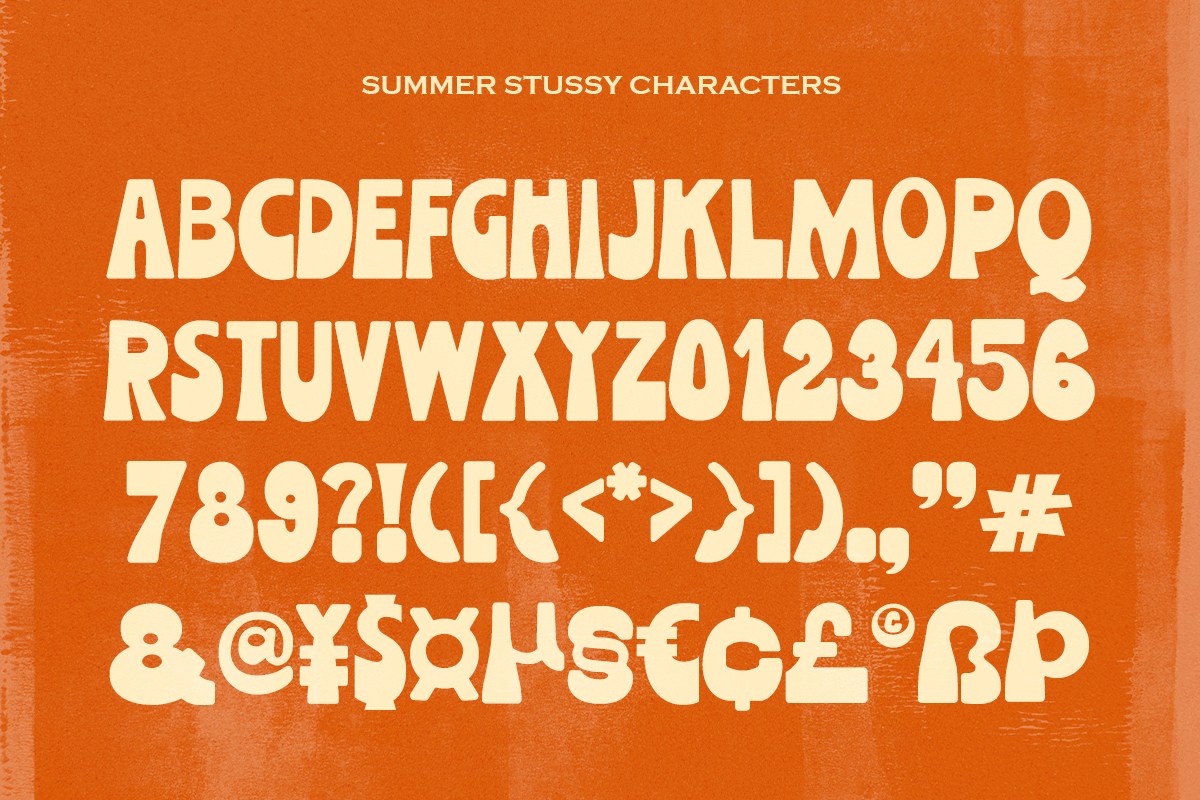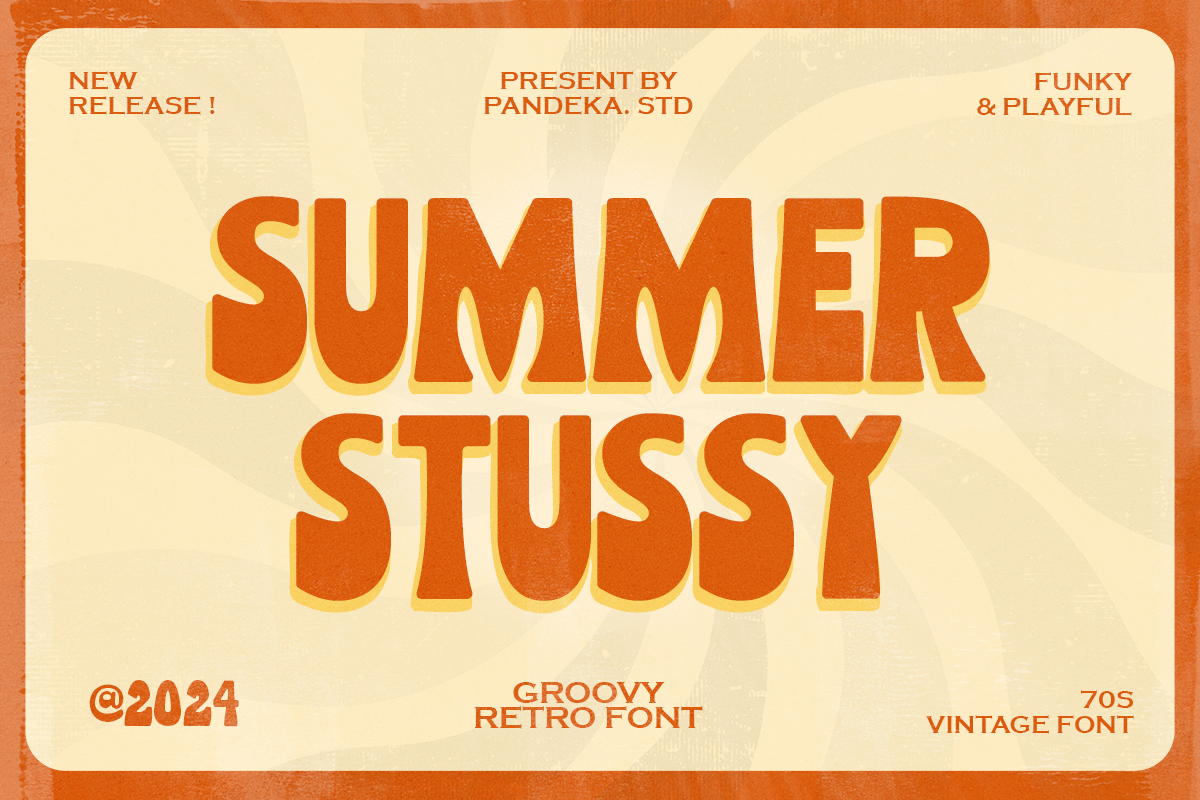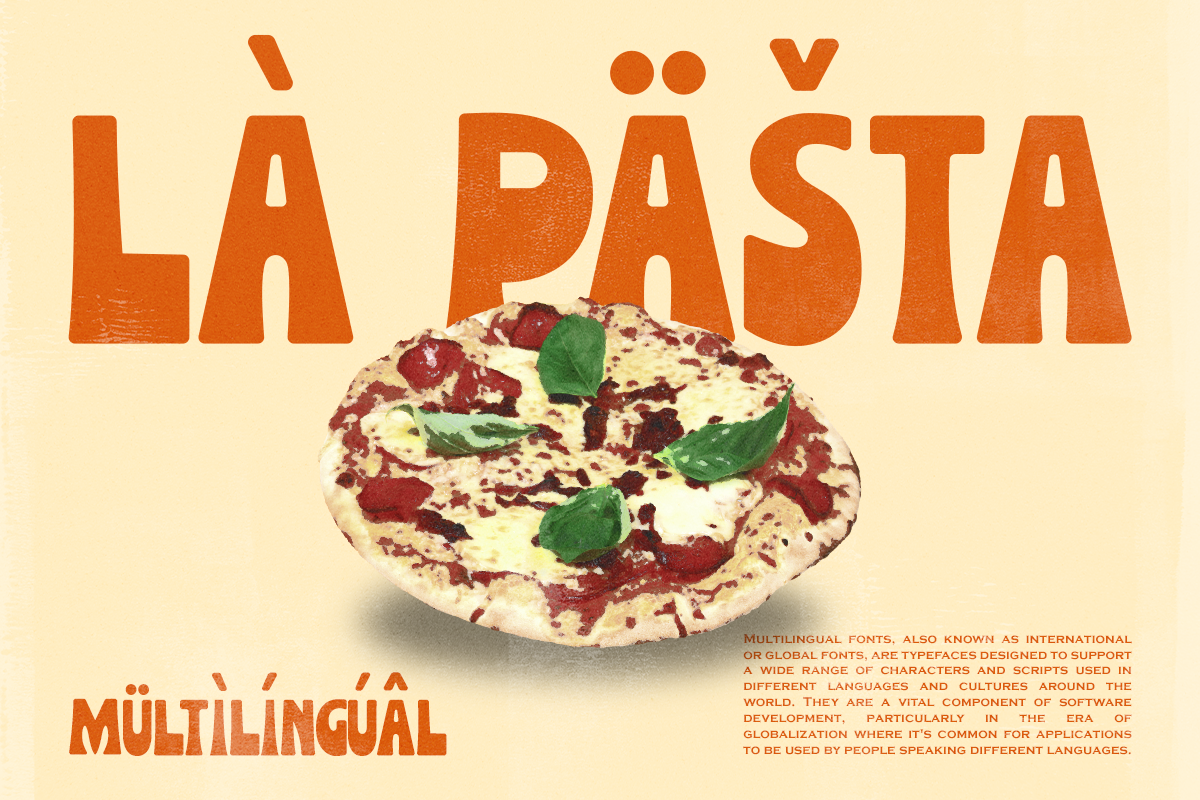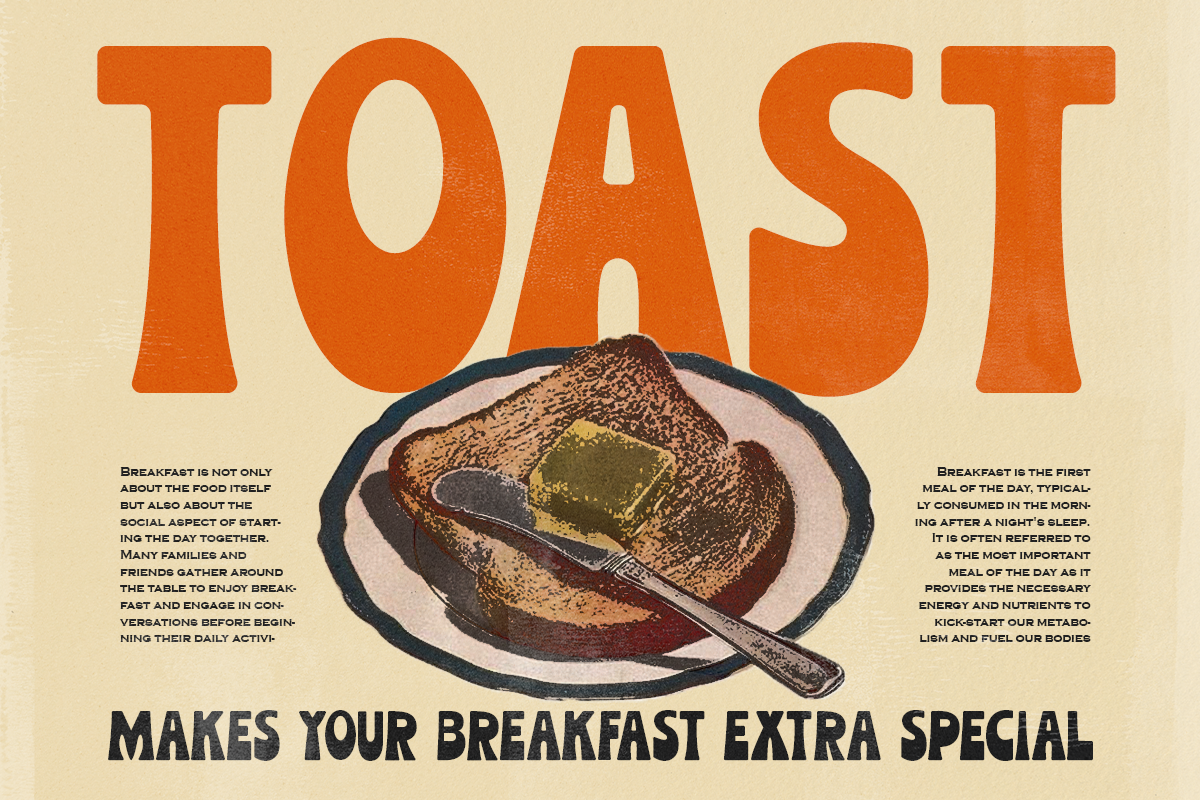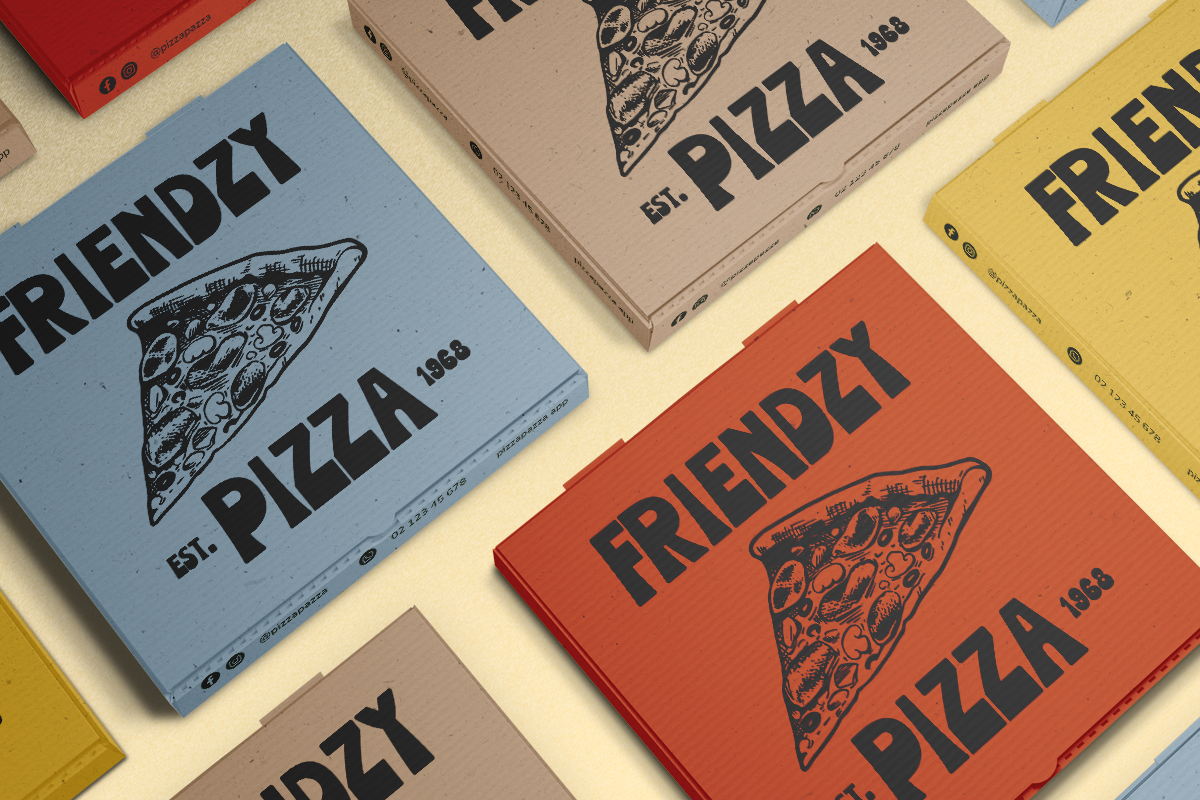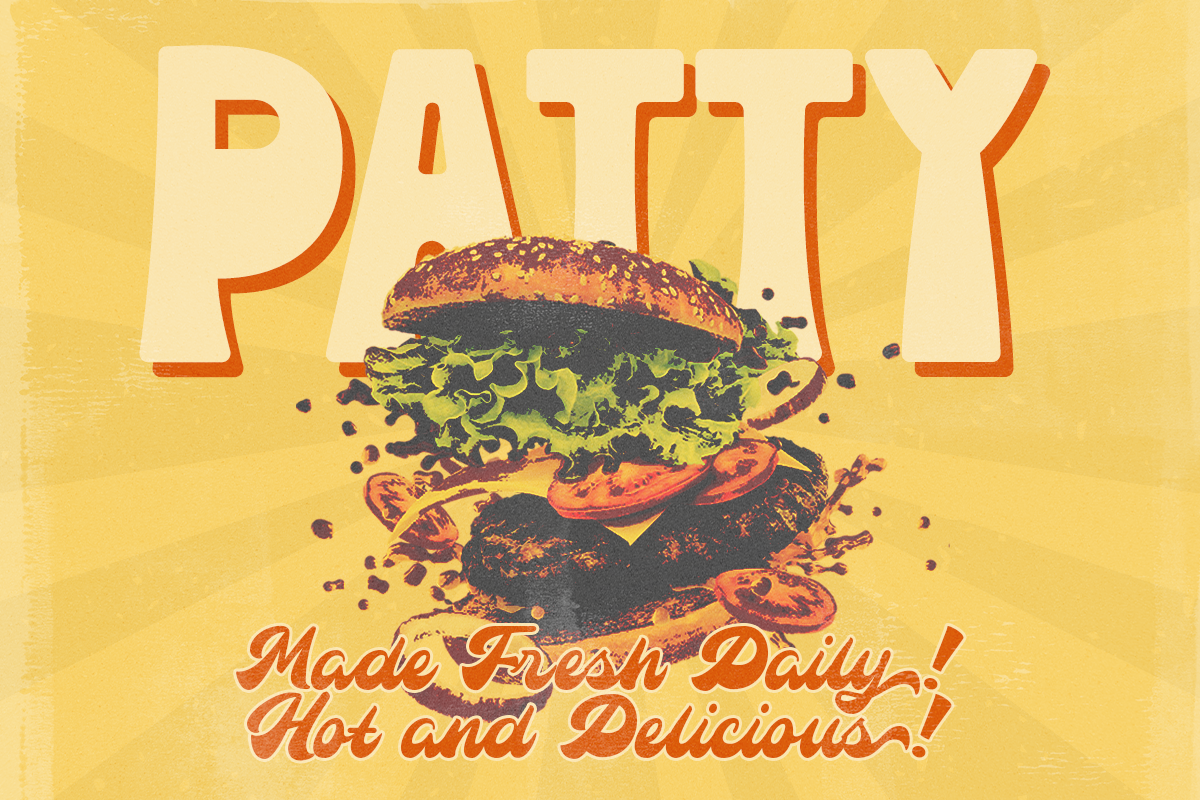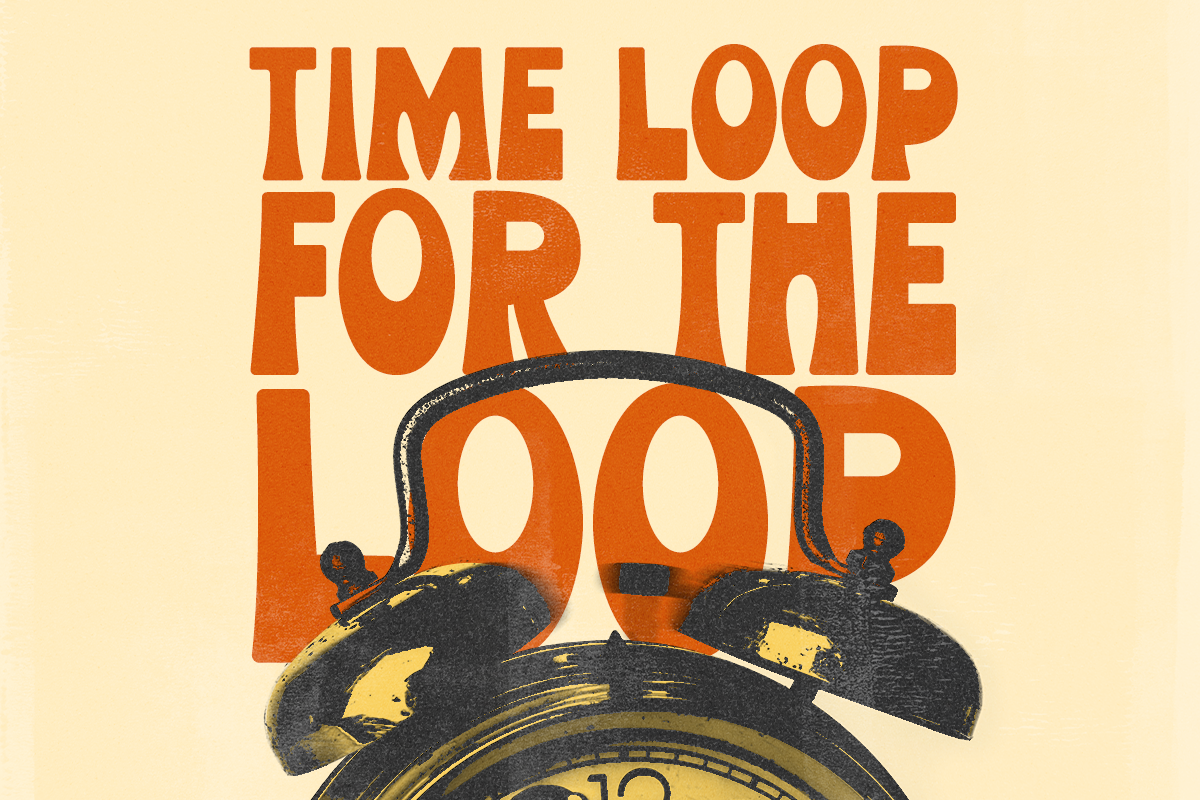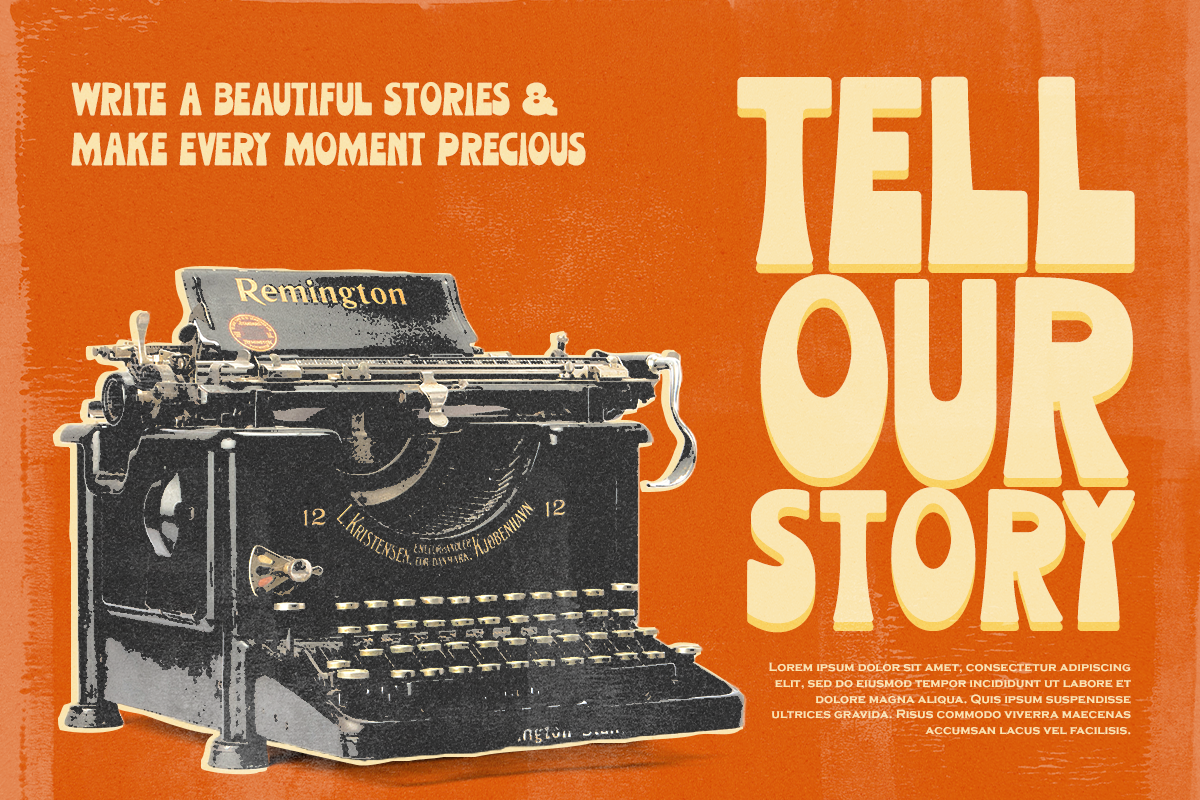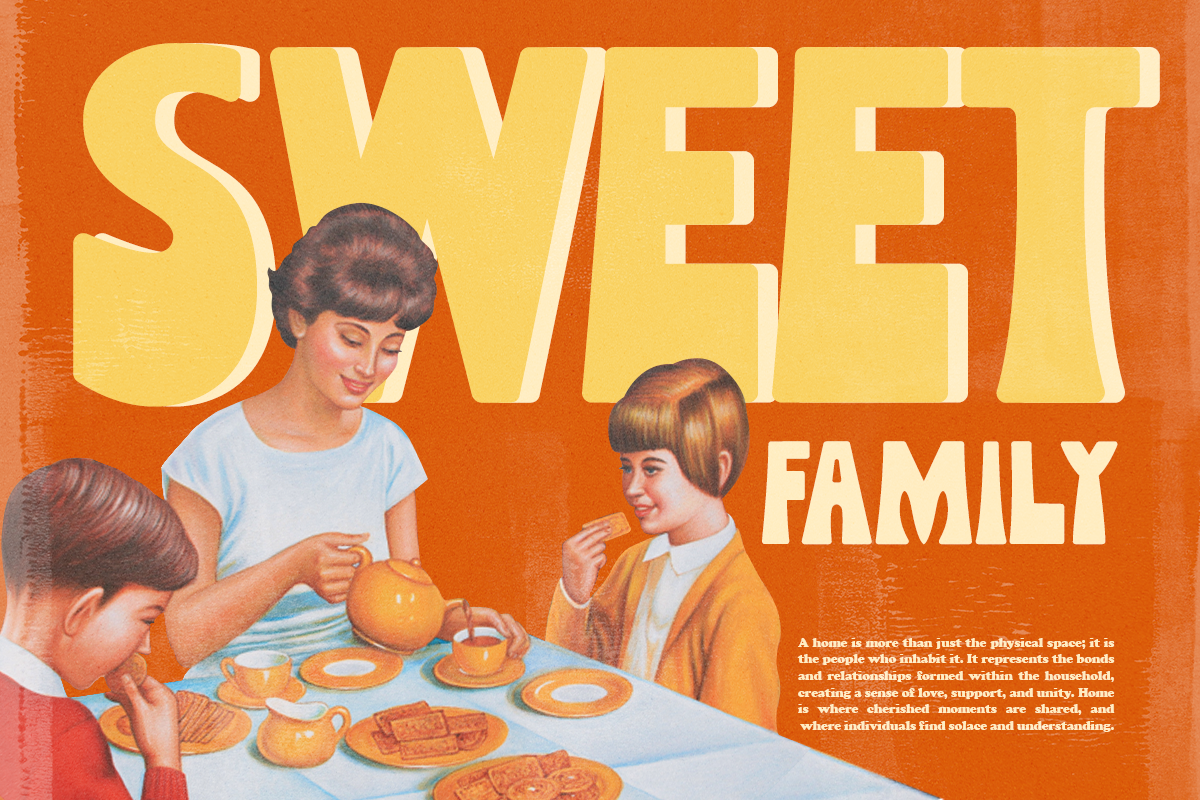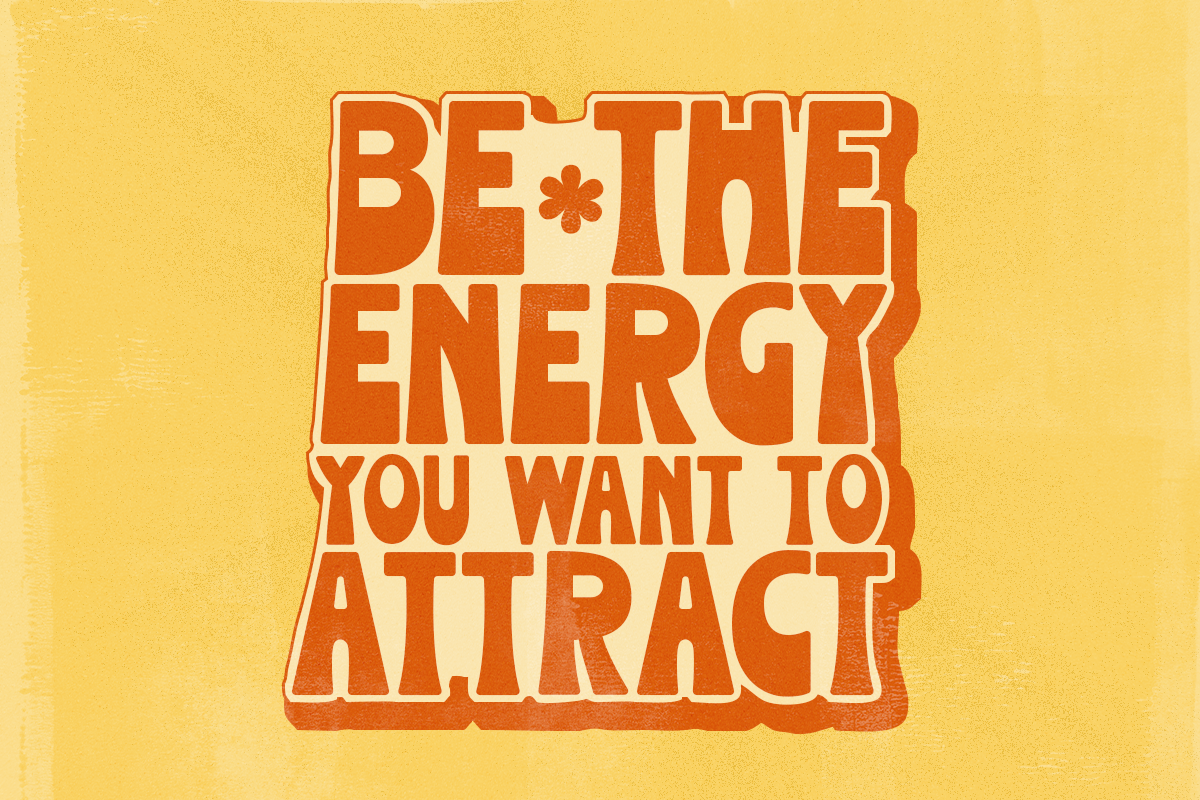
Summer Stussy - Retro Funky Font
Say hello to Summer Stussy! Inspire some retro funky with an all-caps, 70's inspired font complete with groovy bellbottoms!
Summer Stussy can be easily paired with some graphic elements (illustration, photography) this font is perfect for, logotype, branding, title, and packaging.
- Unique Gylph Letters